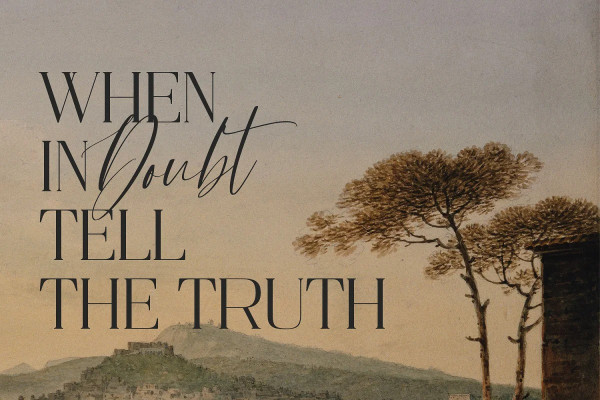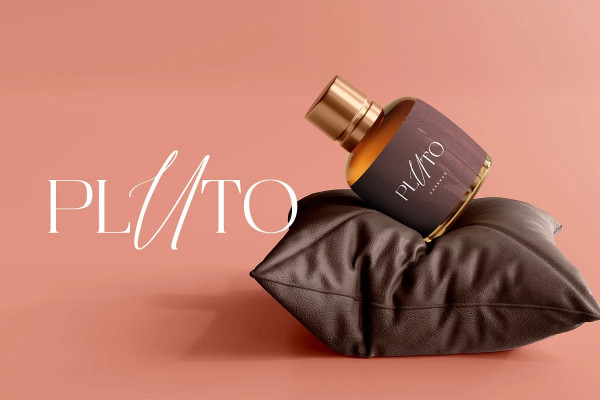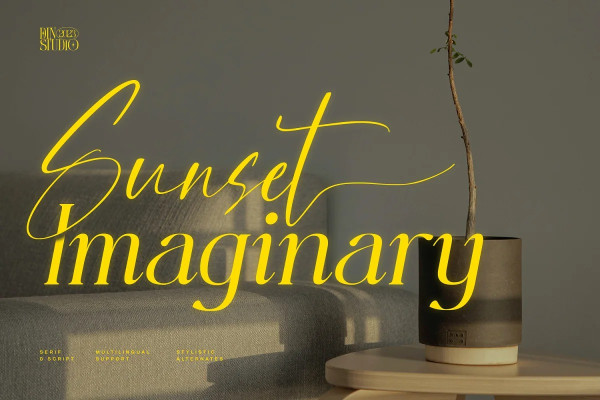
Sunset Imaginary Font
Sunset Imaginary Font is a captivating duo of fonts that brings together the charm of a handwritten style and the timeless elegance of a serif typeface. This combination creates a harmonious and versatile typographic pairing, perfect for a wide range of design projects.
The first font in the Sunset Imaginary duo is a beautiful handwritten font. Its letterforms are intricately crafted, with each letter seamlessly connected to the next, creating a flowing and cohesive script. This handwritten style exudes a sense of warmth and authenticity, as if each word was lovingly penned by hand. The connected letters add a touch of fluidity and rhythm to the text, enhancing its visual appeal. Complementing the handwritten font is a refined serif typeface. With its classic and elegant characteristics, the serif font provides a sense of stability and sophistication to the overall design.
The carefully designed serifs and balanced proportions give the text a timeless and polished look. The combination of the handwritten font and serif font in Sunset Imaginary offers a versatile typographic palette. It allows you to create striking contrasts and establish hierarchy within your designs. Enjoy the various features available in this font.